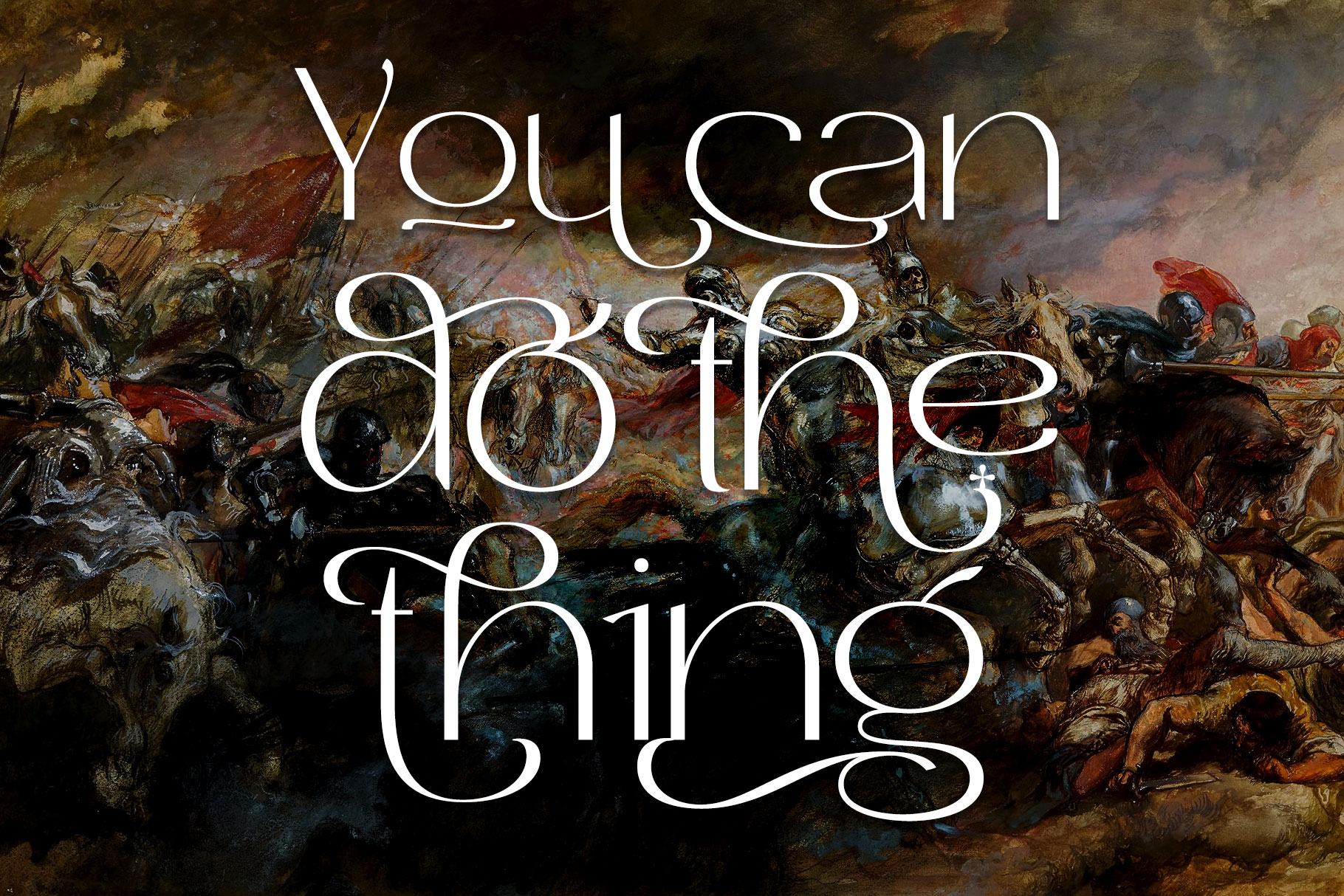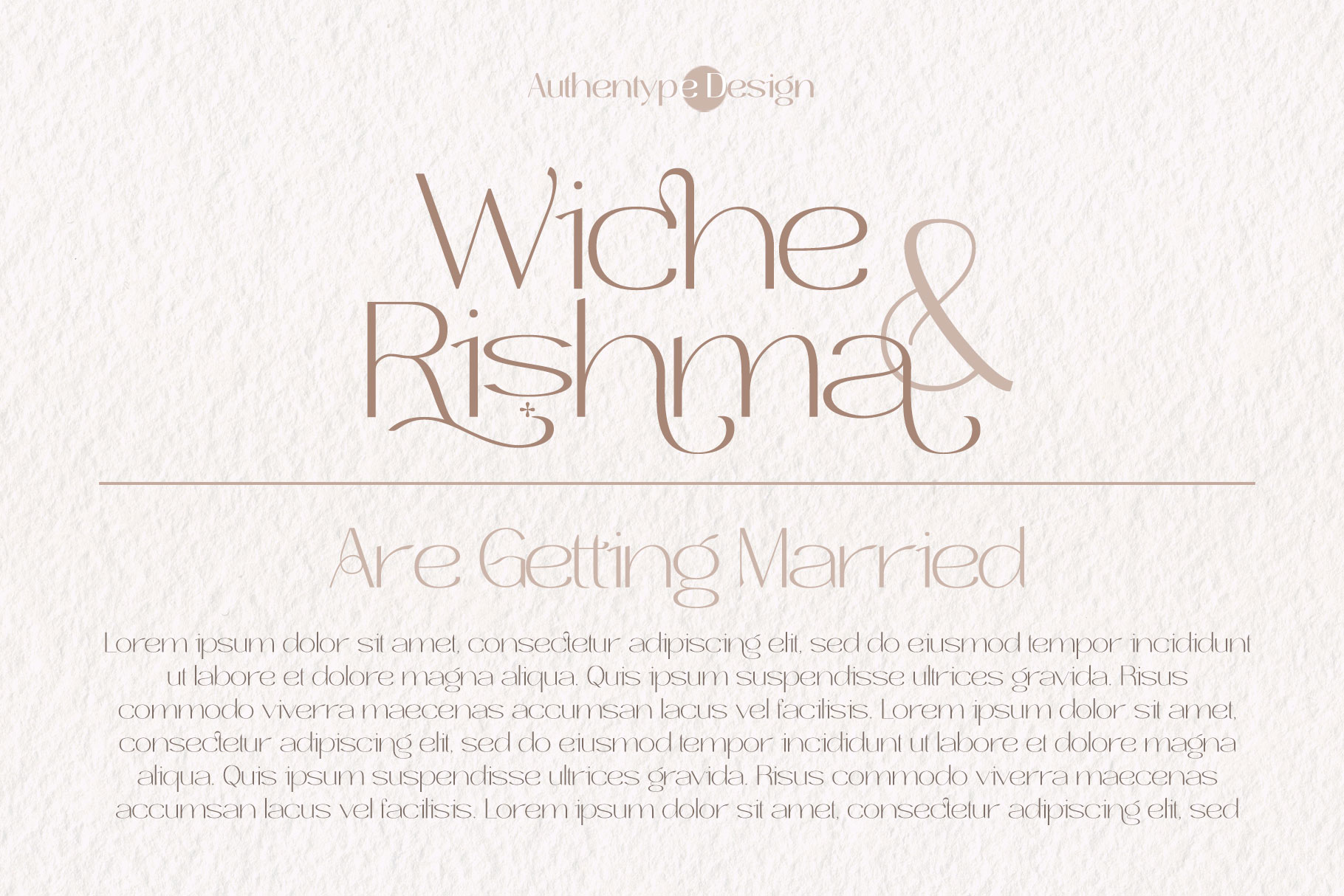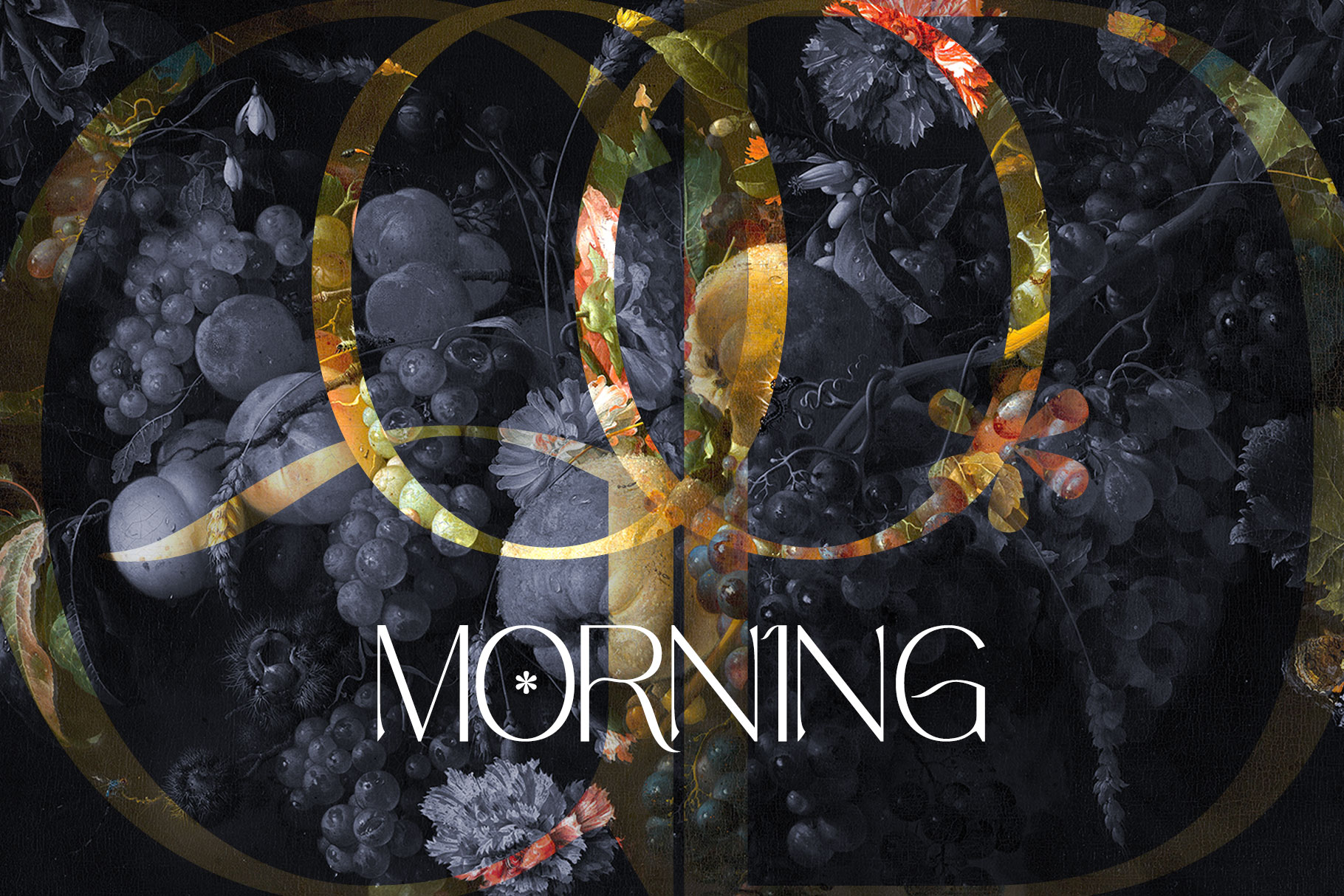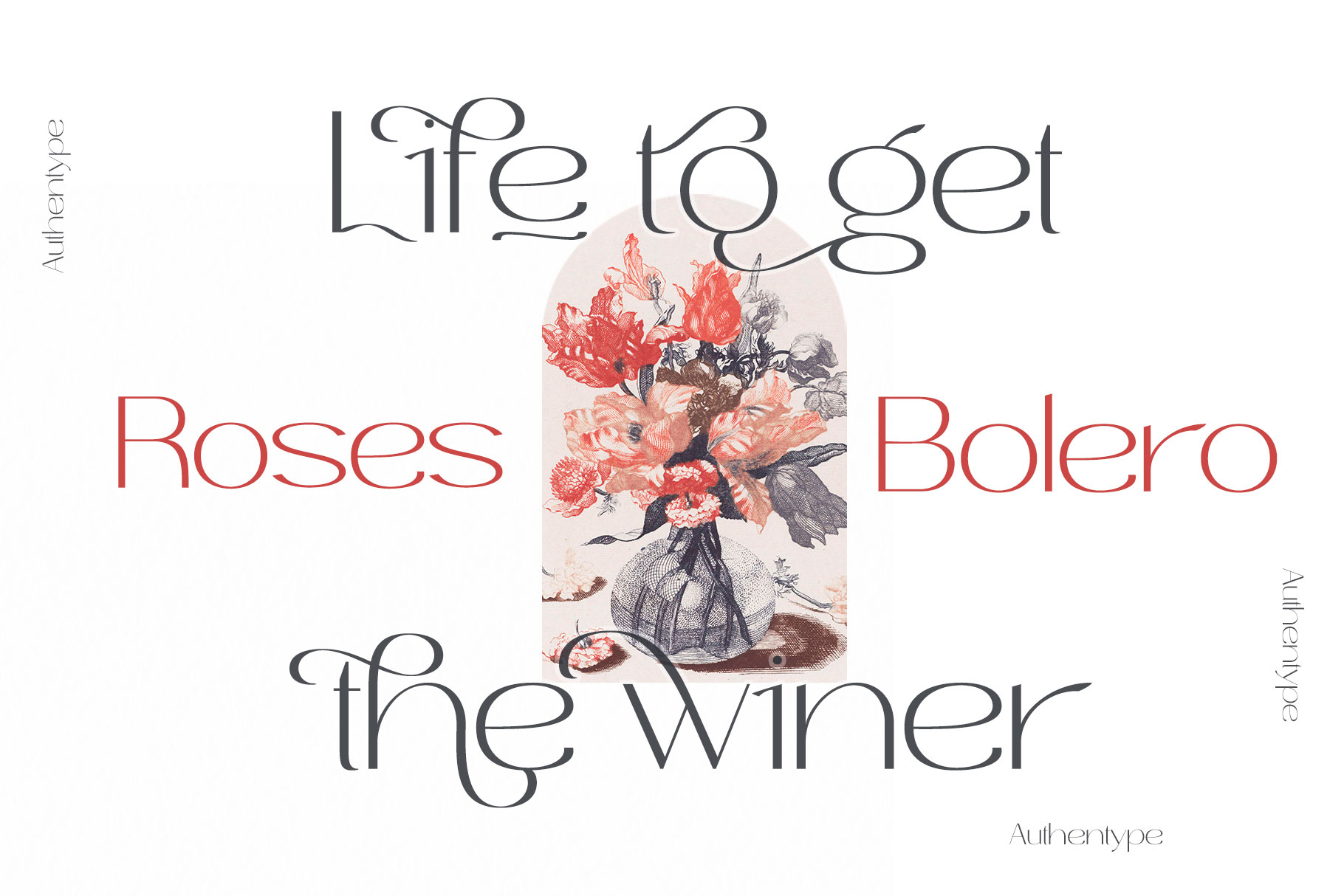
Roses Bolero Elegant Font
Roses Bolero Elegant Sans Serif Font
This is a sans serif font with full set of uppercase and lowercase letters, multilingual symbols, numerals, punctuation and ligatures.  Roses Bolero elegant sans serif font classic and elegant style for poster design, magazines, beauty branding with a flower-shaped asterisk glyph suitable for your beautiful and elegant design concept.